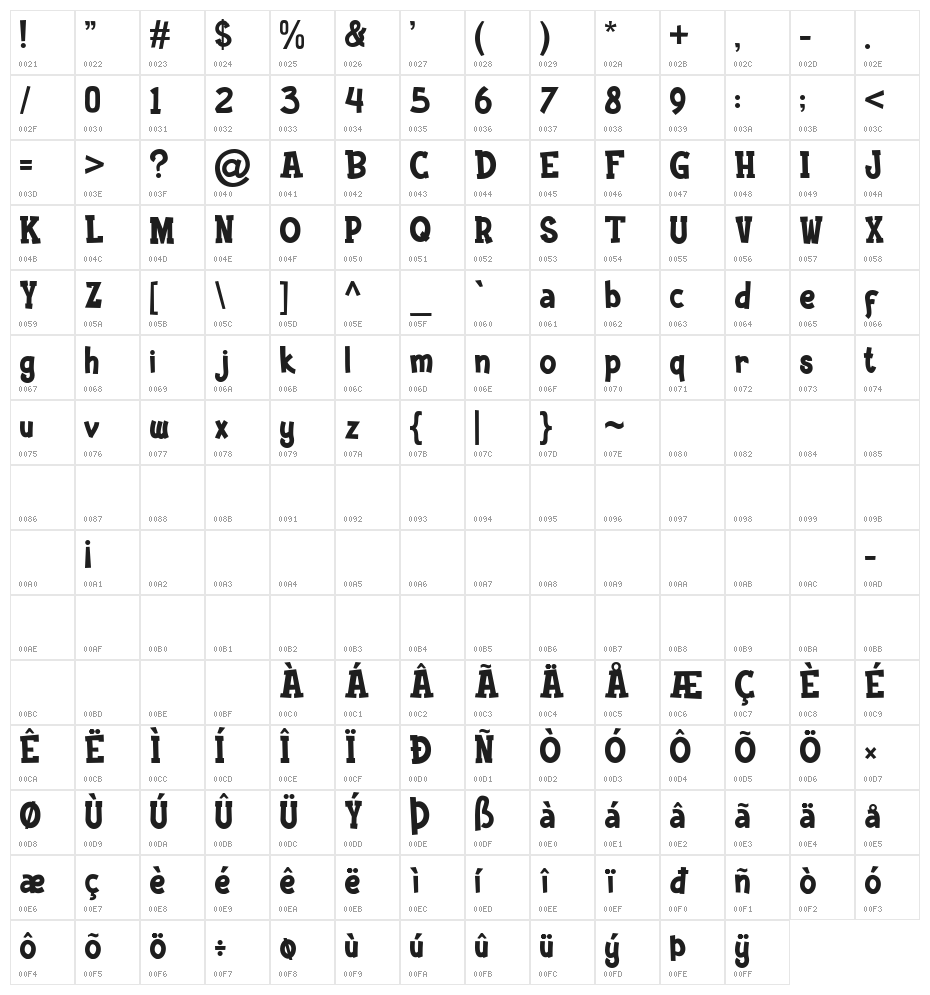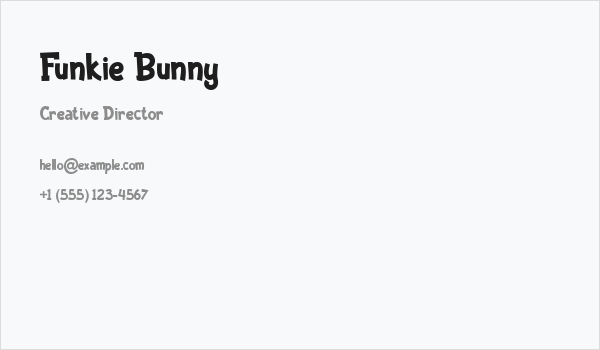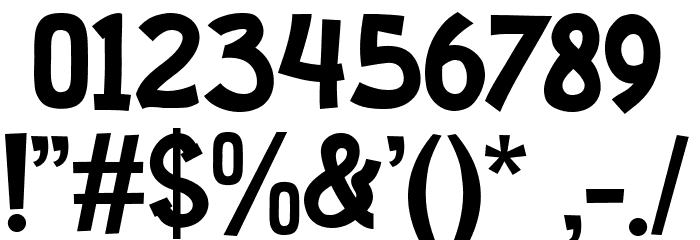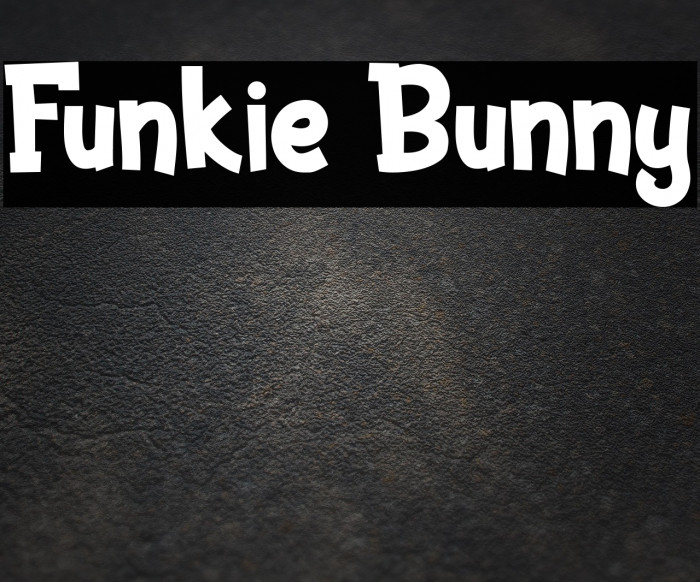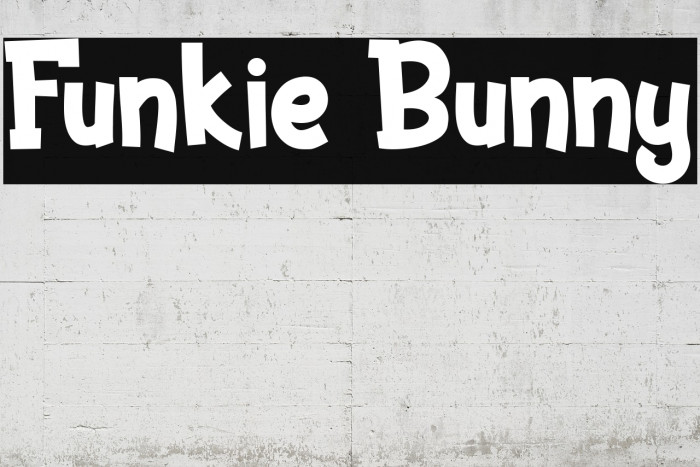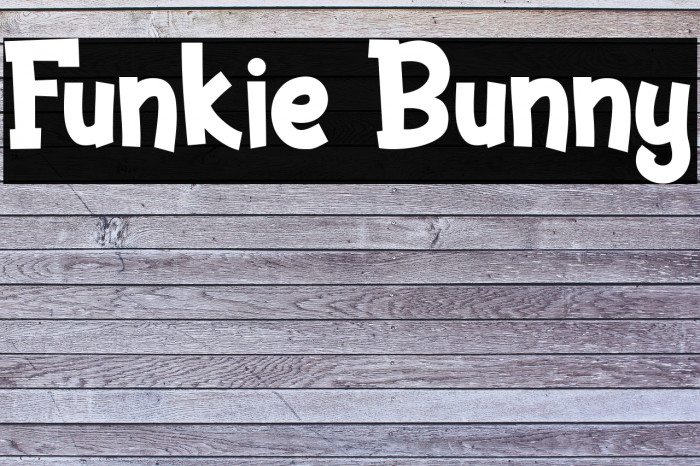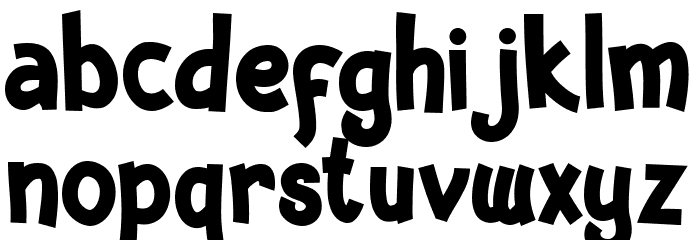
Funkie Bunny Font
Funkie Bunny Description
This playful and quirky font features bold, exaggerated letterforms with a whimsical touch. The characters have a hand-drawn appearance, with uneven strokes and a lively, energetic style. The uppercase letters are particularly bold and dynamic, while the lowercase letters maintain a consistent, playful rhythm. The numbers and special characters follow the same lively design, making them stand out with their unique shapes. This font's overall appearance is both fun and eye-catching, suitable for creative and informal projects.
| Overall Style | Playful, Whimsical, Energetic |